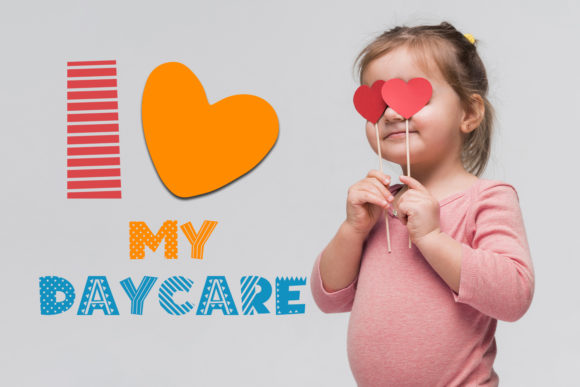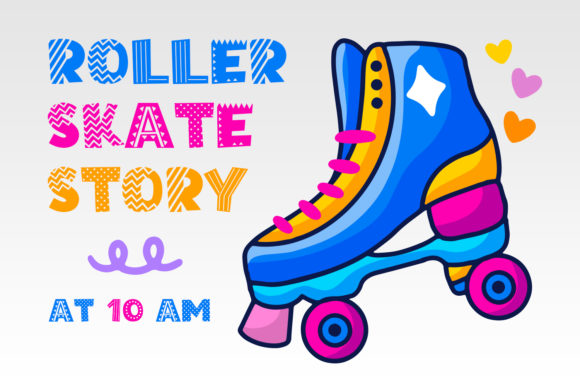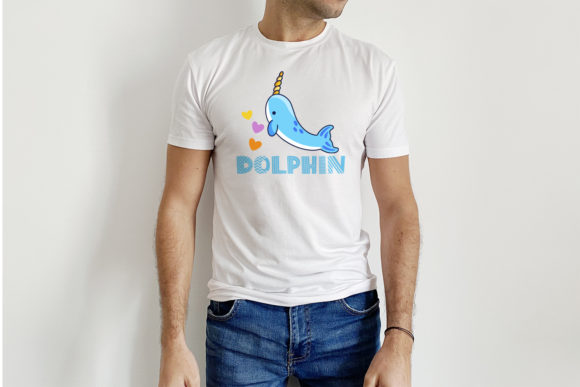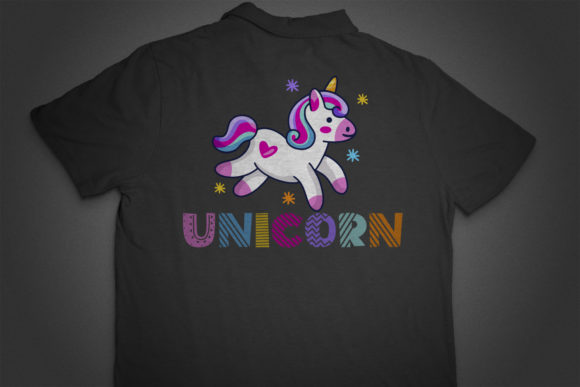
Cute Cartoon Font: Adding a Touch of Whimsy to Your Designs
Are you looking for a font that embodies fun, quirkiness, and authenticity? Look no further than the Cute Cartoon font! This enchanting display font is perfect for turning any creative idea into a true standout. With its childlike playfulness, it’s ideal for brightening up any kids’ and school project. In this article, we’ll explore the world of Cute Cartoon fonts and how you can get creative with this delightful font.
The Charm of Cute Cartoon Fonts
Cute Cartoon fonts are designed to capture the imagination and evoke a sense of nostalgia. They are characterized by their playful, whimsical, and often quirky style, making them perfect for designs that require a touch of fun and personality. Whether you’re working on a kids’ project, a school assignment, or simply want to add some personality to your digital creations, Cute Cartoon fonts are an excellent choice.
Features of Cute Cartoon Fonts
- Playful and Whimsical: Cute Cartoon fonts are designed to be fun and engaging, making them perfect for designs that require a playful touch.
- Childlike Authenticity: These fonts capture the essence of childhood, making them ideal for kids’ projects and school assignments.
- Quirky and Unique: Cute Cartoon fonts are designed to stand out, adding a touch of personality to any design.
- Versatile: These fonts can be used for a wide range of projects, from digital designs to print materials.
Uses of Cute Cartoon Fonts
Cute Cartoon fonts are incredibly versatile and can be used for a wide range of projects, including:
- Kids’ Projects: Use Cute Cartoon fonts to create fun and engaging designs for kids’ projects, such as posters, flyers, and brochures.
- School Assignments: Add a touch of personality to school assignments, such as reports, presentations, and projects.
- Digital Designs: Use Cute Cartoon fonts to create fun and engaging digital designs, such as social media graphics, blog posts, and website headers.
- Crafting and Scrapbooking: Add a touch of whimsy to your crafting and scrapbooking projects with Cute Cartoon fonts.
Tips for Using Cute Cartoon Fonts
Here are some tips for getting the most out of Cute Cartoon fonts:
- Use them sparingly: Cute Cartoon fonts are best used sparingly, as they can be overwhelming if overused.
- Pair with simple fonts: Pair Cute Cartoon fonts with simple fonts to create a balanced design.
- Experiment with colors: Have fun with colors and experiment with different combinations to create a unique look.
- Be creative: Don’t be afraid to get creative and try new things with Cute Cartoon fonts!
Cute Cartoon fonts are a delightful way to add a touch of whimsy and fun to your designs. With their playful, quirky, and authentic style, they’re perfect for kids’ projects, school assignments, and digital designs. Whether you’re a designer, crafter, or simply someone who loves to have fun, Cute Cartoon fonts are an excellent choice. So why not give them a try and see how they can bring your designs to life?